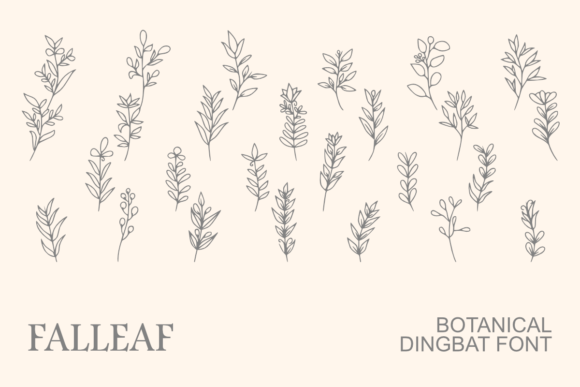
Introducing Falleaf Font, the perfect dingbats font for your creative endeavors! Created by DDY creative, this stunning font is designed to add a touch of nature's beauty to your projects. With its intricate foliage, wildflowers, branches, wild plants, and botanical elements, Falleaf Font will captivate your audience and elevate your designs to new heights.
Are you looking for the best font to enhance your numbers on Cricut? Look no further! Falleaf Font is specifically crafted to be the ultimate choice for all your number-related projects. Its unique and eye-catching style will make your numbers stand out, leaving a lasting impression on your audience. Whether you're creating invitations, posters, or digital content, this font is an absolute game-changer.
What sets Falleaf Font apart is its hand-drawn style, which exudes a sense of authenticity and charm. Each element is meticulously crafted to bring a natural and organic feel to your designs. Let your creativity flow as you incorporate this font into your artwork, logos, or branding materials. The possibilities are endless, and the results will leave you in awe.
But Falleaf Font is not just visually appealing; it also evokes a range of emotions. Its botanical elements symbolize growth, vitality, and the beauty of nature. By using this font, you can evoke a sense of freshness and tranquility, creating a harmonious connection with your audience. Whether you're designing for a gardening blog, a yoga studio, or a wellness brand, Falleaf Font will help you convey your message effectively.